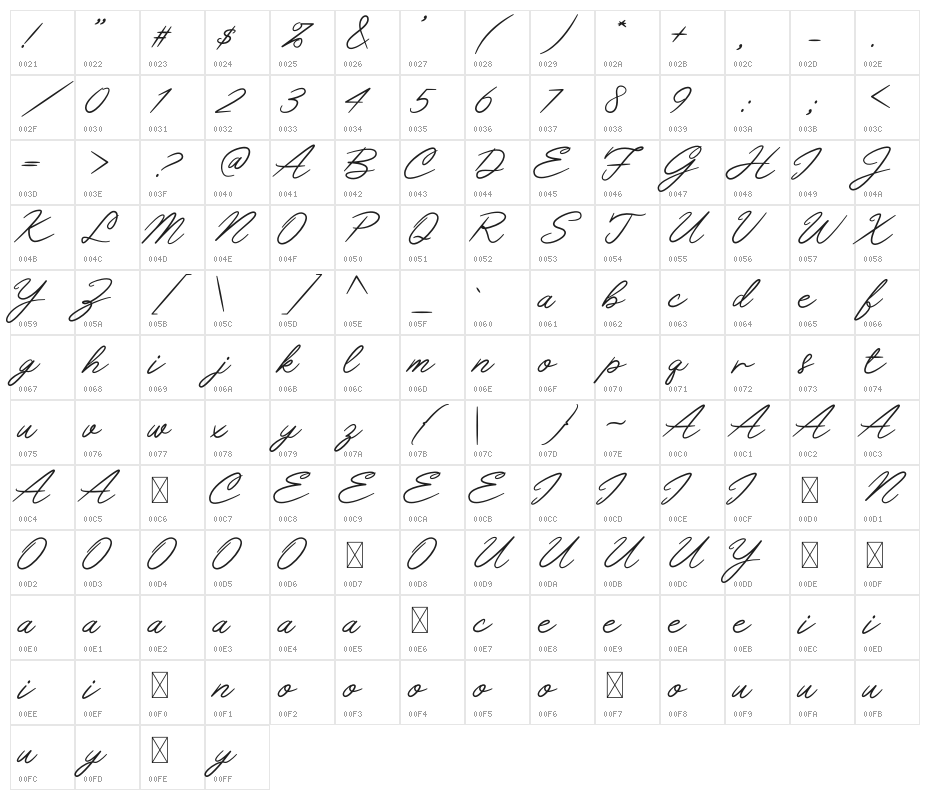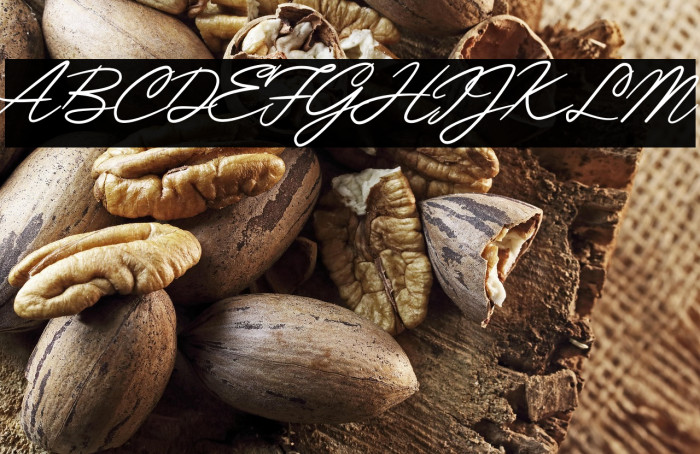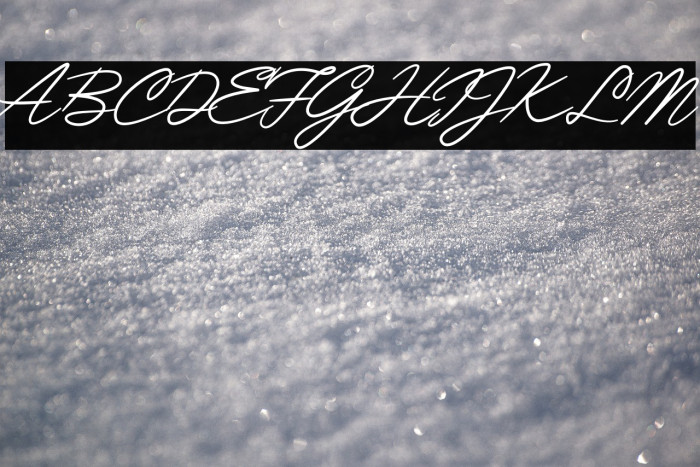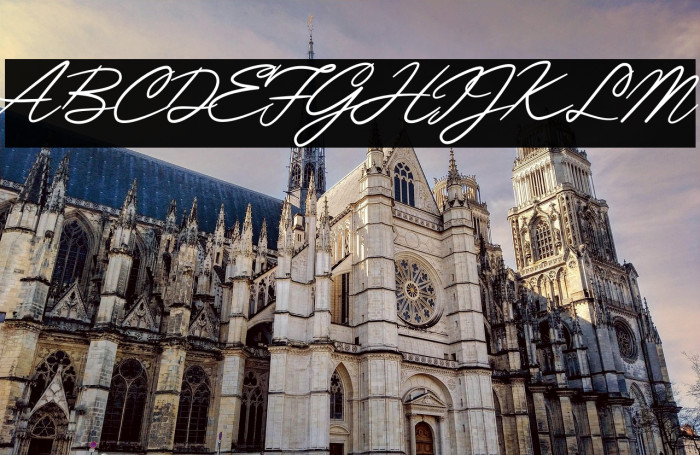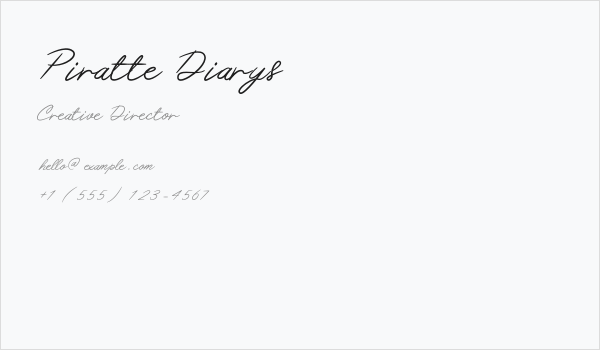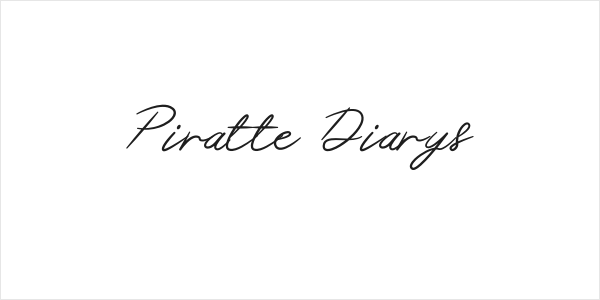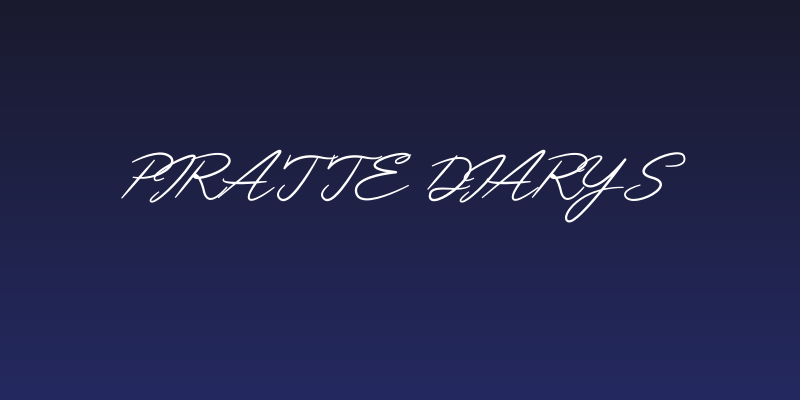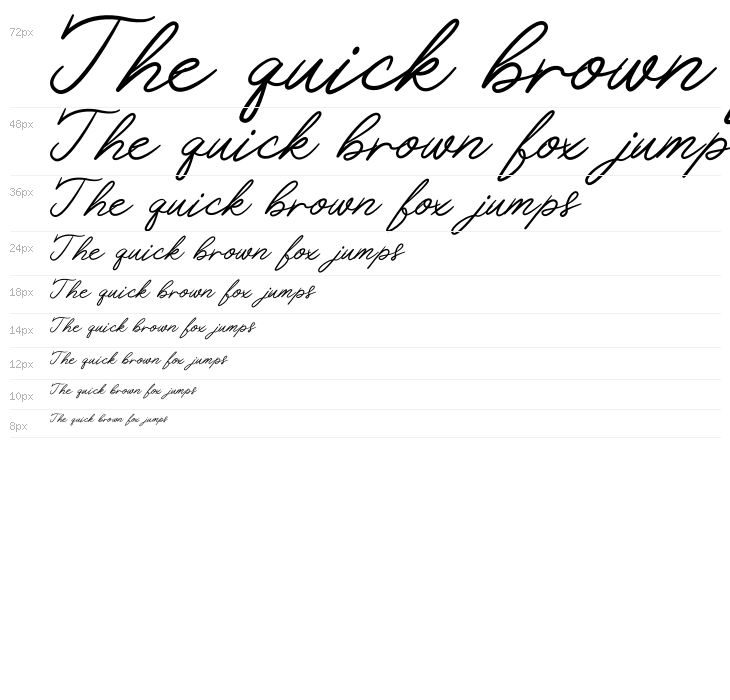
Piratte Diarys Font
Piratte Diarys Description
A flowing, cursive script font with elegant, connected letters, suitable for formal and decorative uses.
| Use Case | Headlines, Invitations, Decorative text |
| Proposed Projects | Invitations, greeting cards, decorative headings. |